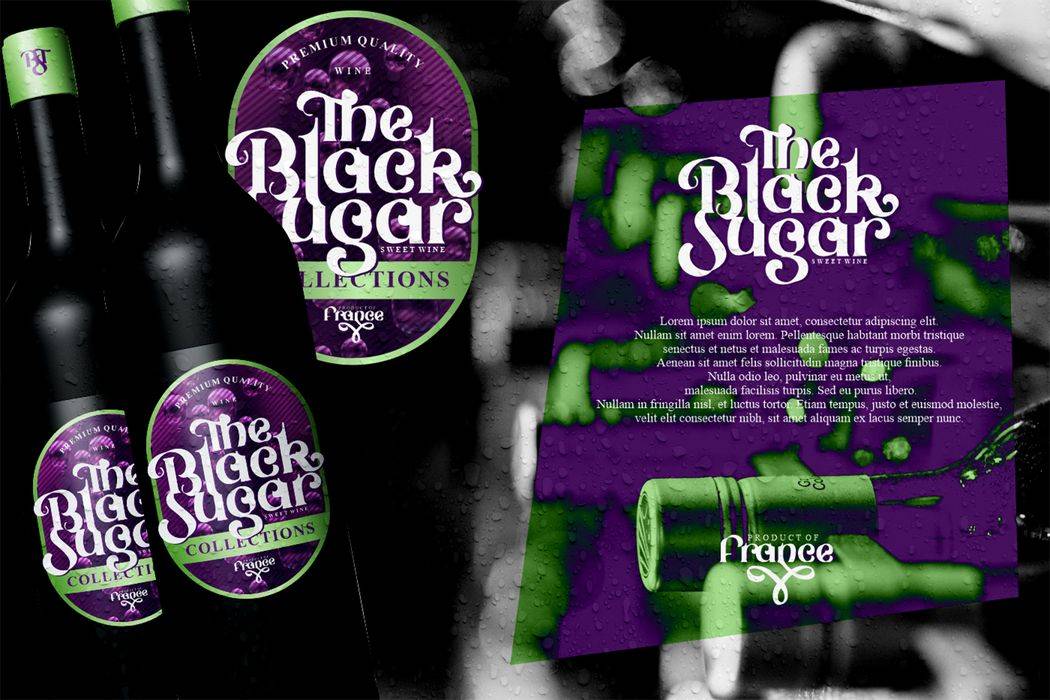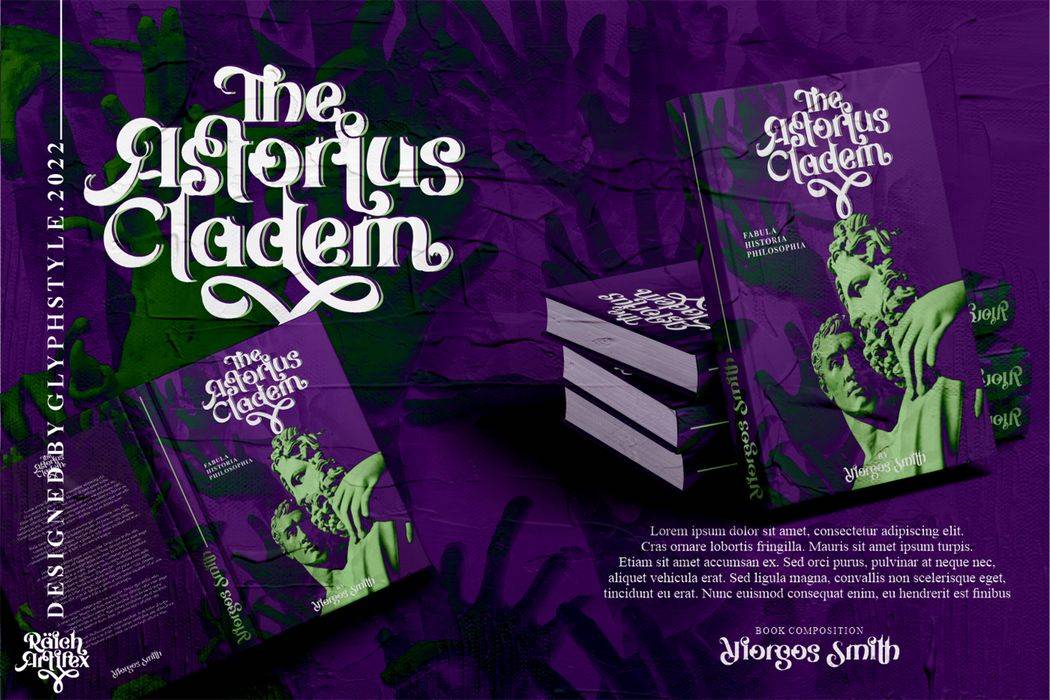
Raich Artifex is a distinctive serif font with a bold weight and dramatic, high-contrast strokes that blend sharp, ornamental details with playful swirls. Its unique, decorative letterforms evoke a vintage yet artistic feel, making it ideal for eye-catching headlines, logos, and creative branding where a touch of elegance and flair is desired. This font stands out best in display settings where its intricate design can be appreciated.
Raich Artifex Font
About Raich Artifex Font
| Font family | Raich Artifex Font |
| Designer | Glyphstyle |